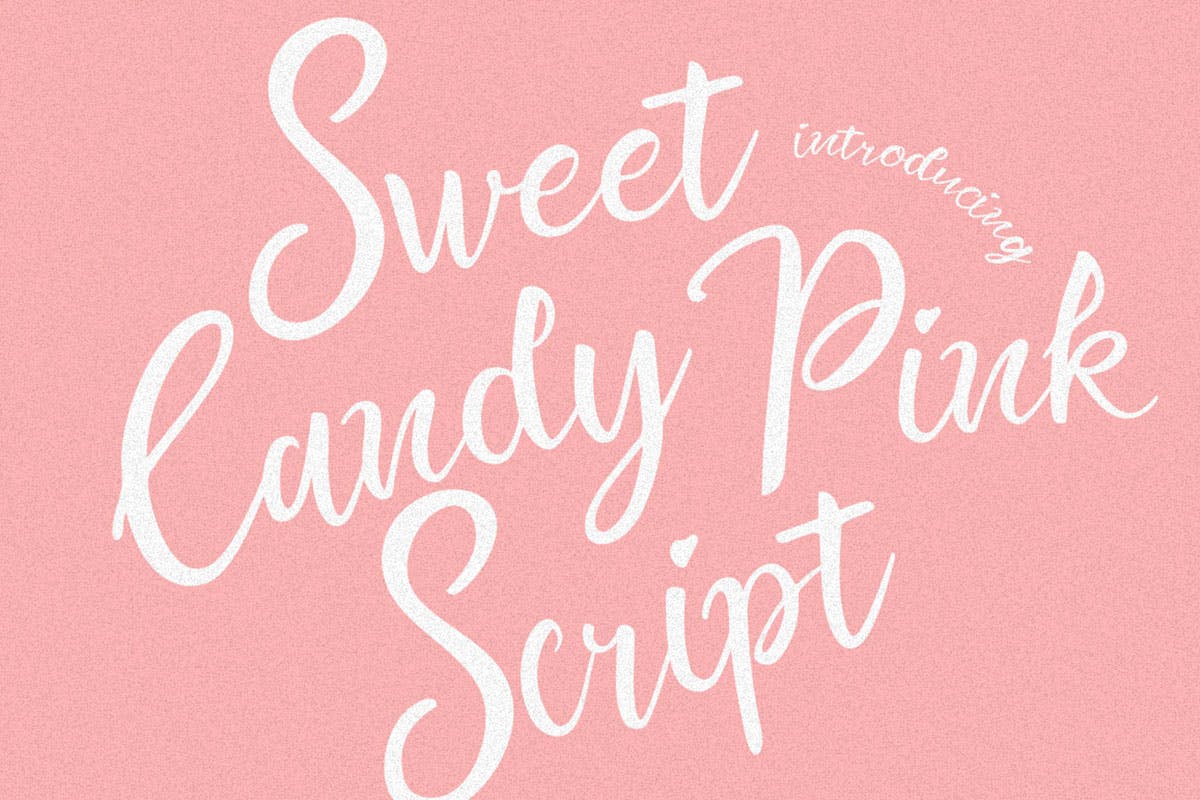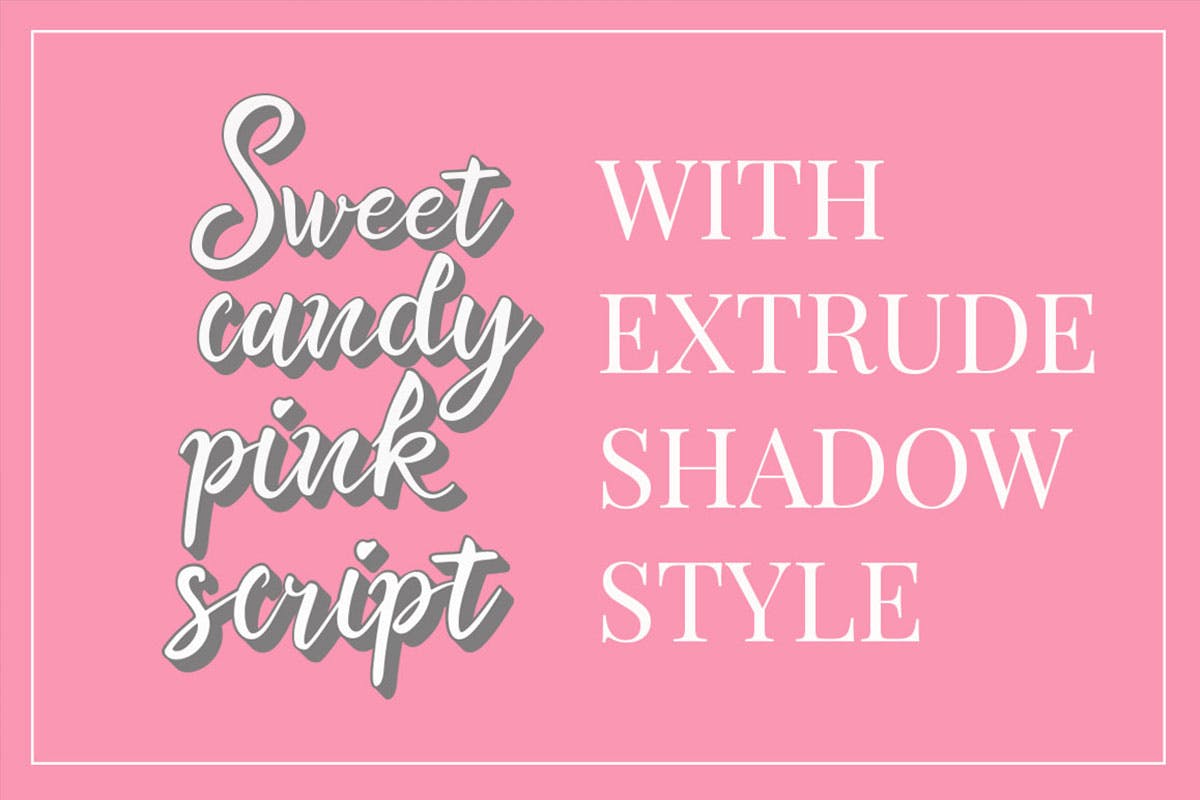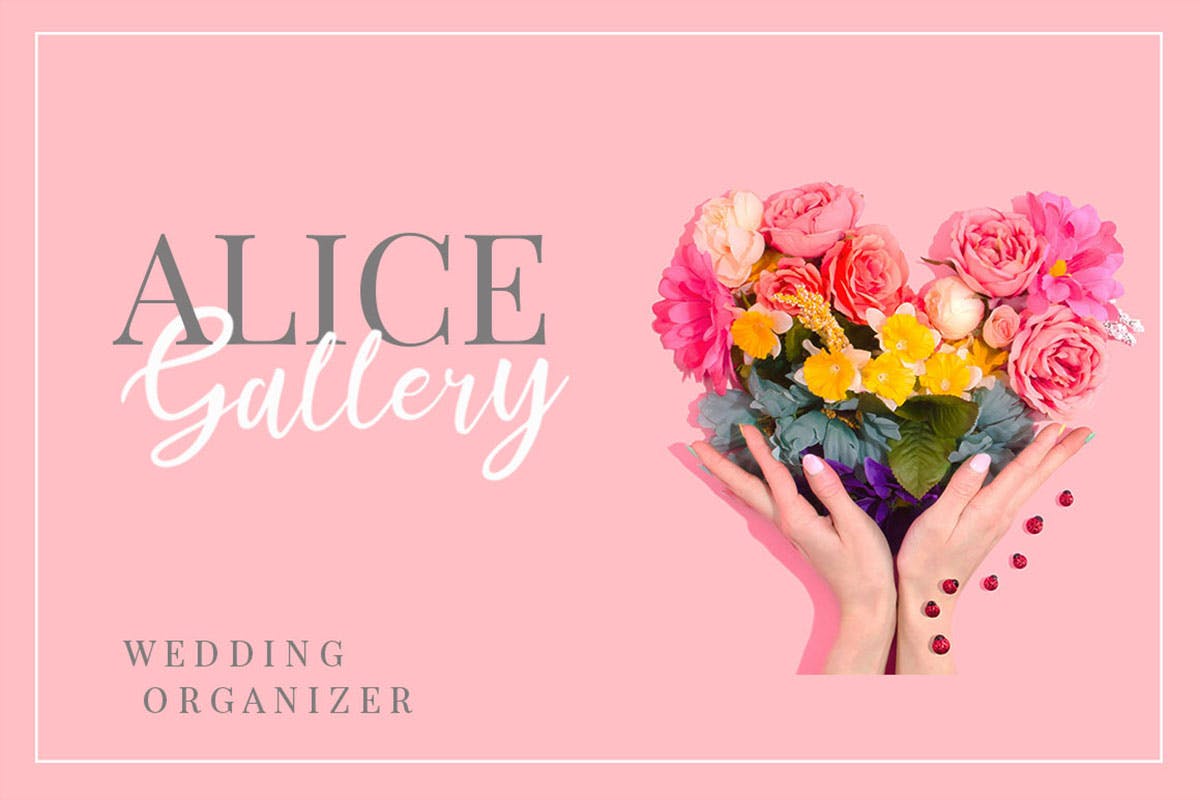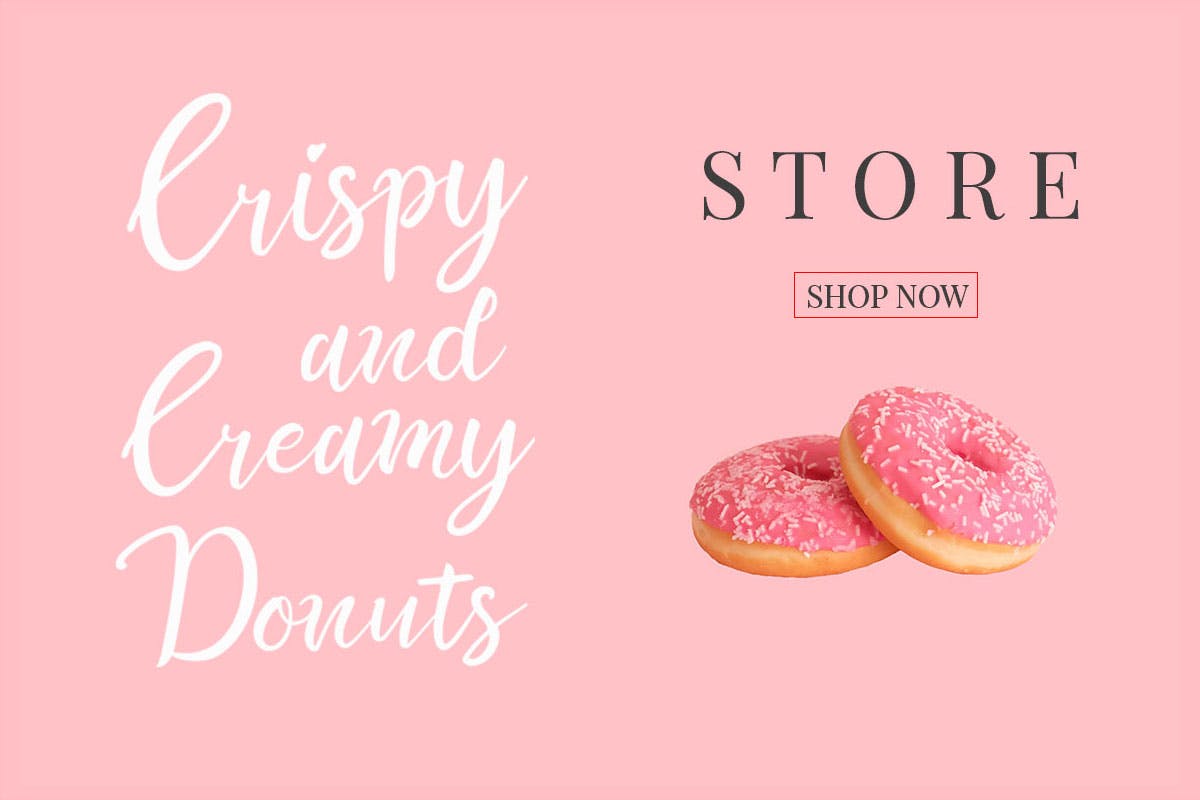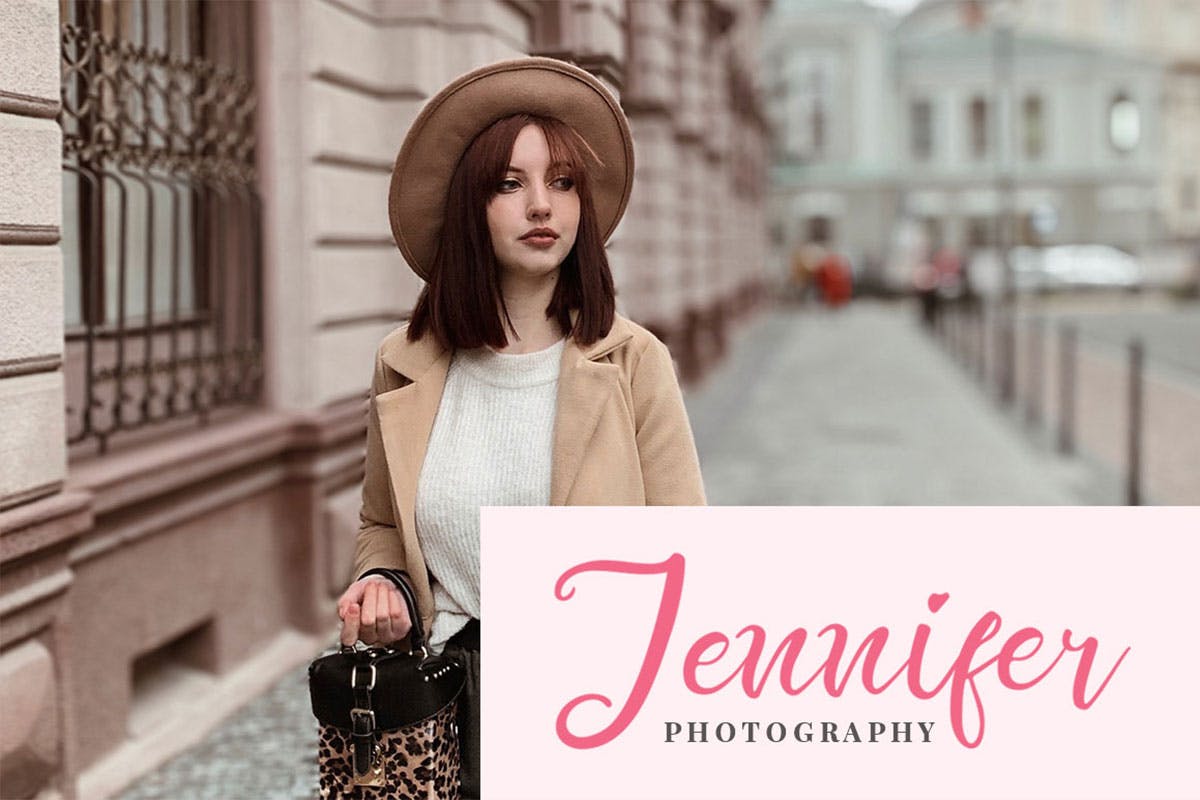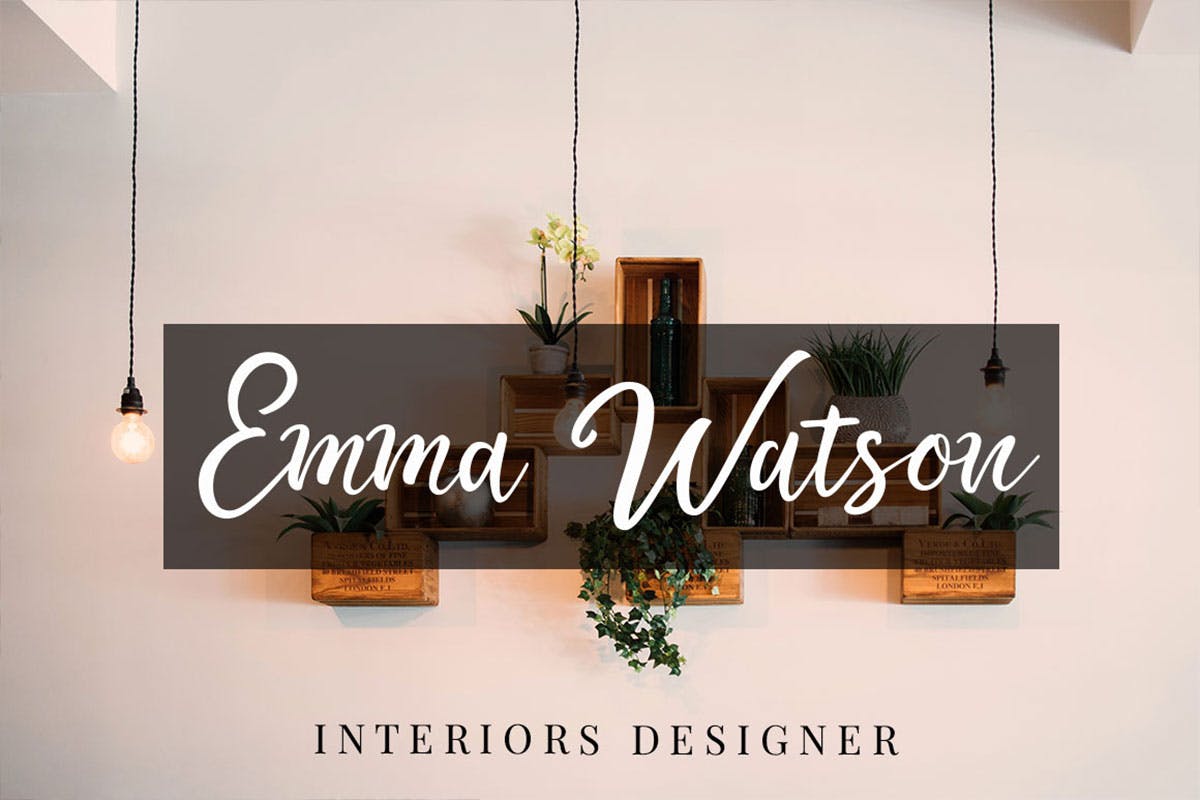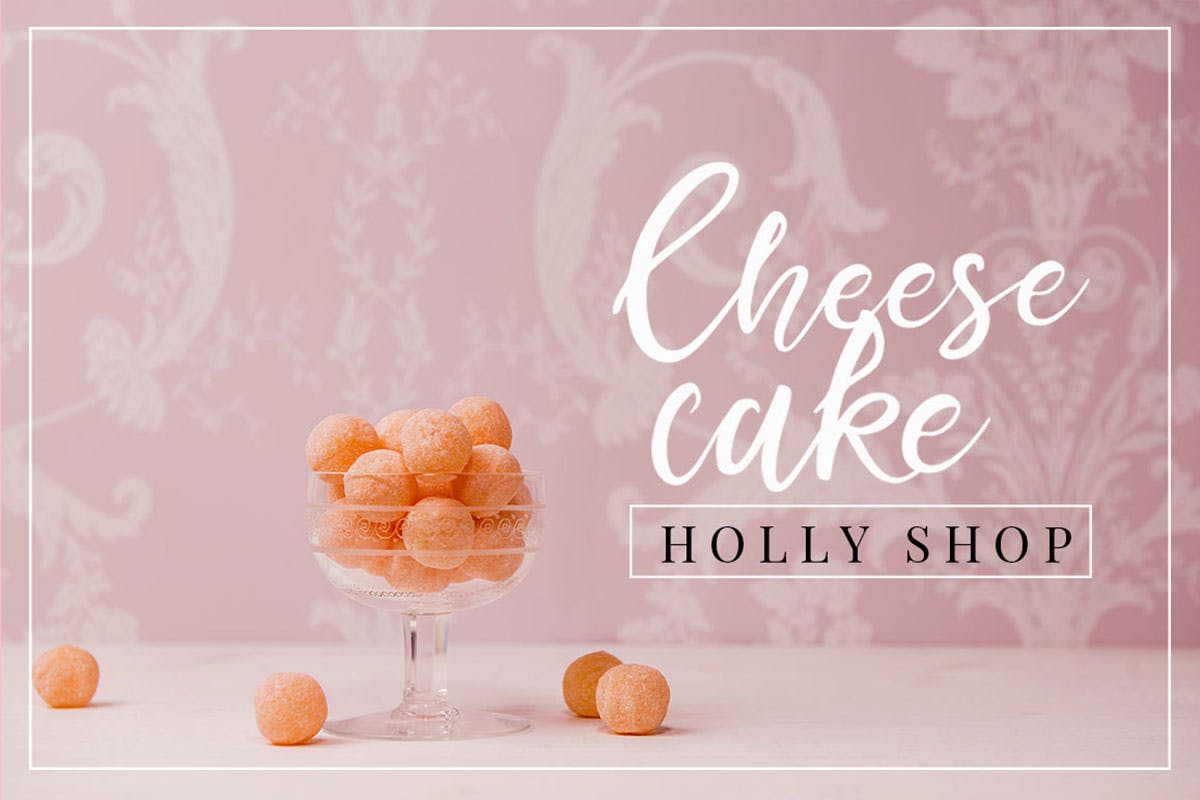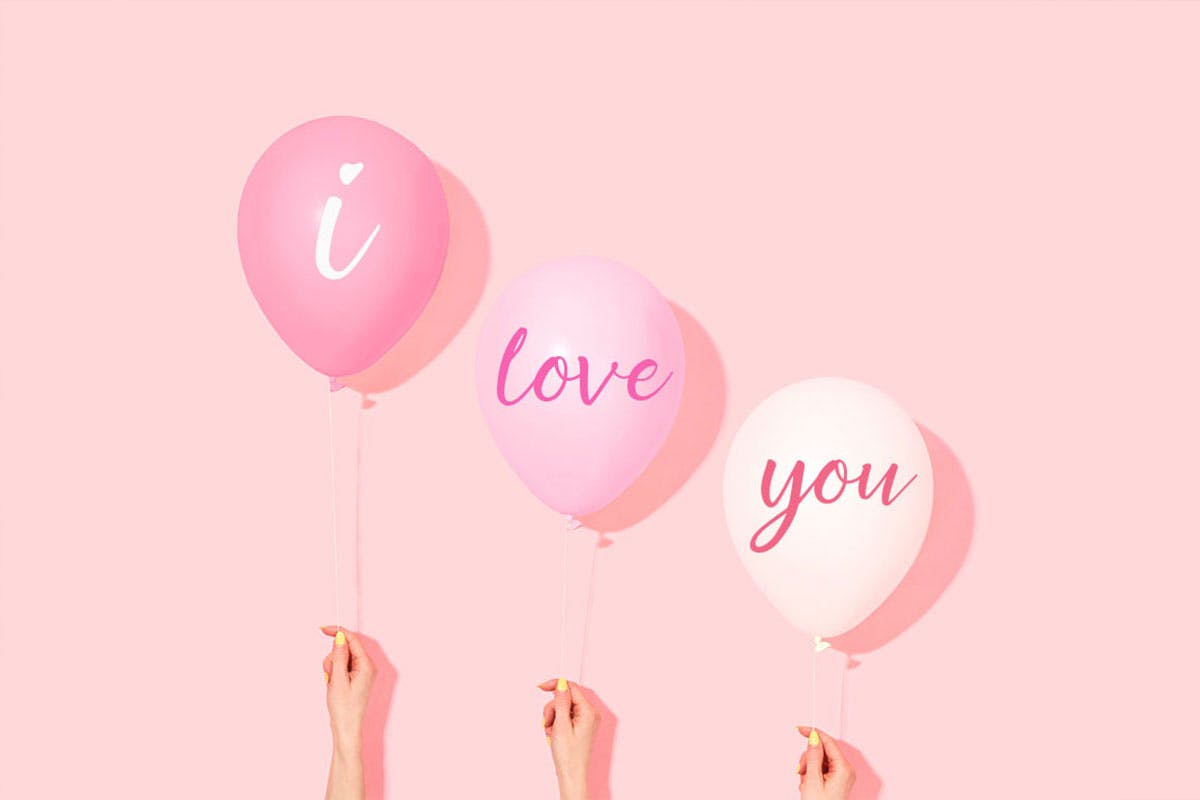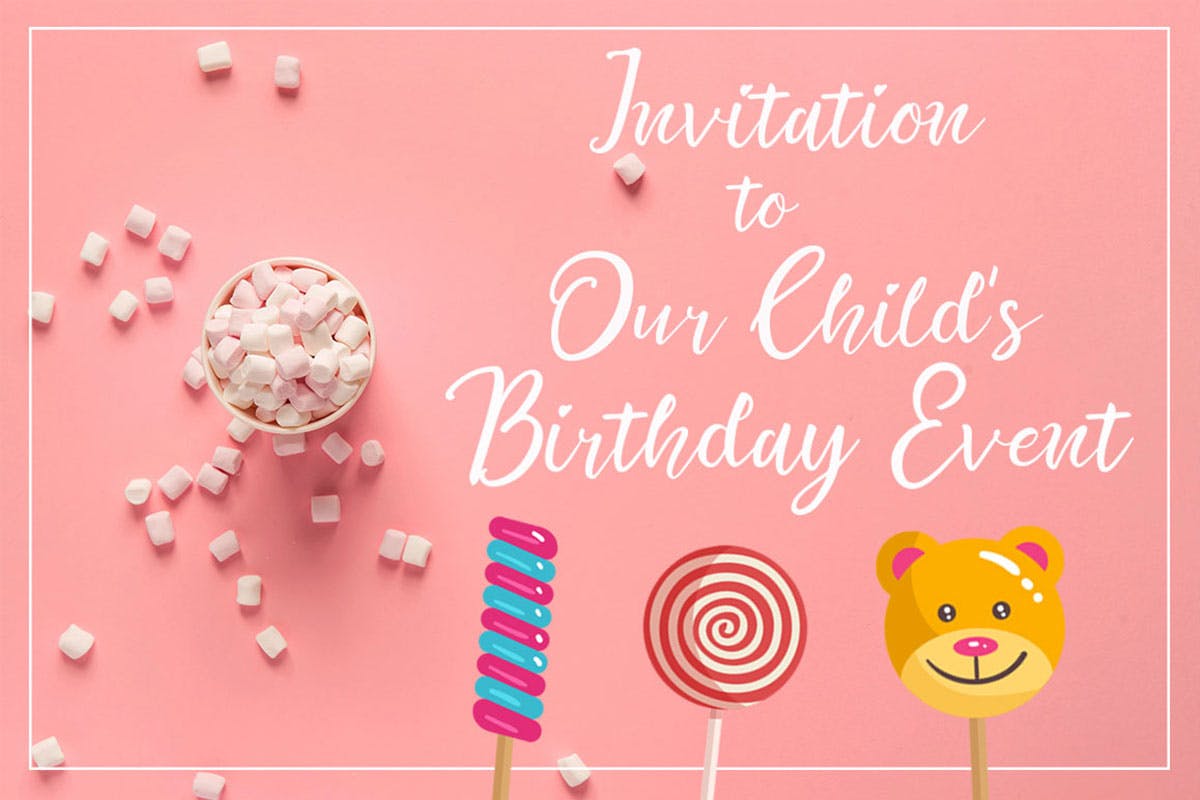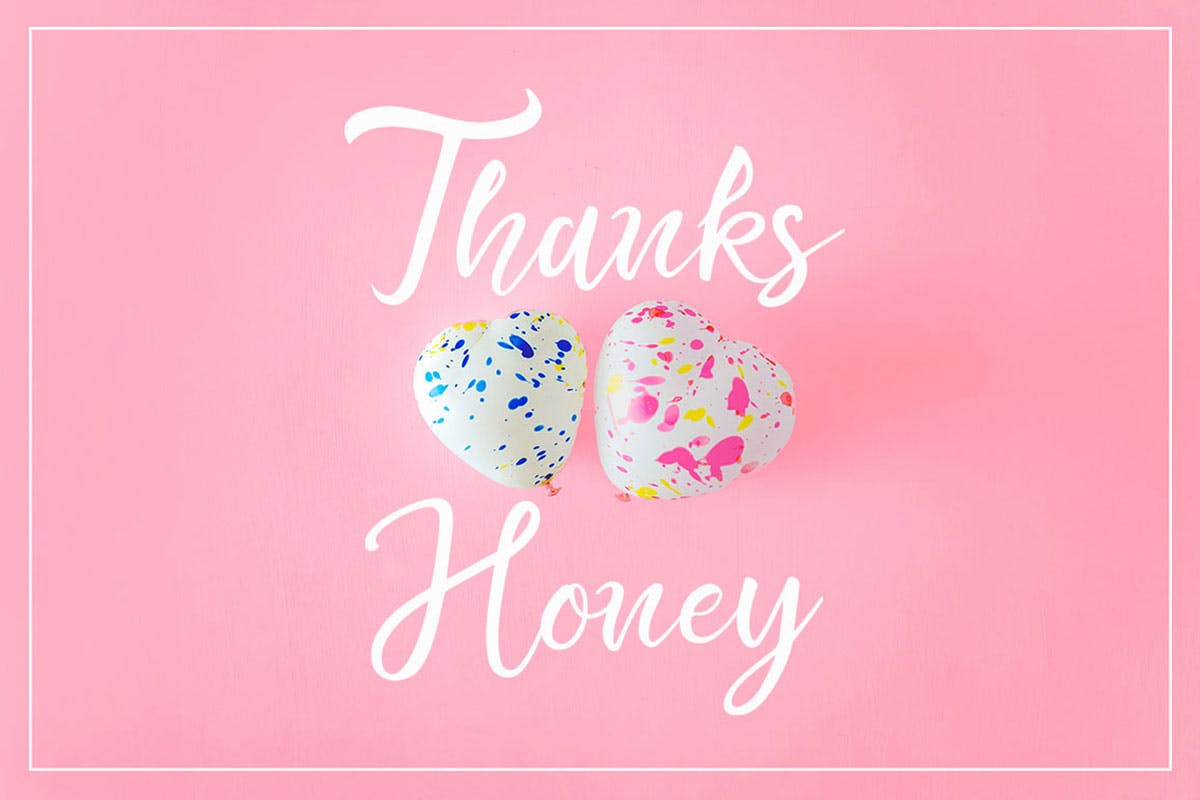
Free Demo Sweet Candy Pink Script Font
Free Demo Sweet Candy Pink Script Font is a script font with feminist style typeface. It appears to combine perfectly and allows you to create stunning hand-lettering quick and easy. This font comes with upper and lowercase characters, a large set of punctuation glyphs, numerals, and supports international languages. Hence, this free font is perfect for branding, poster and other display design purposes.